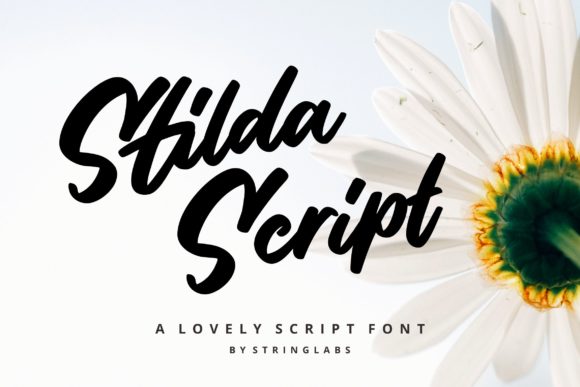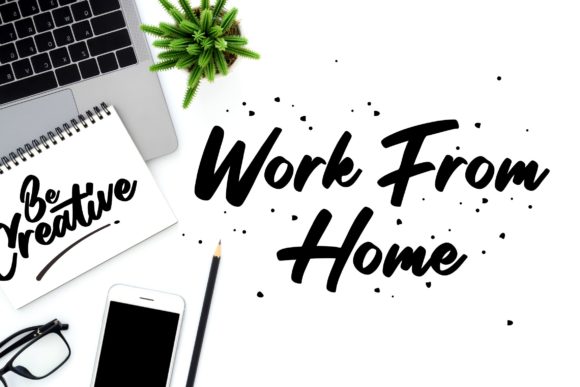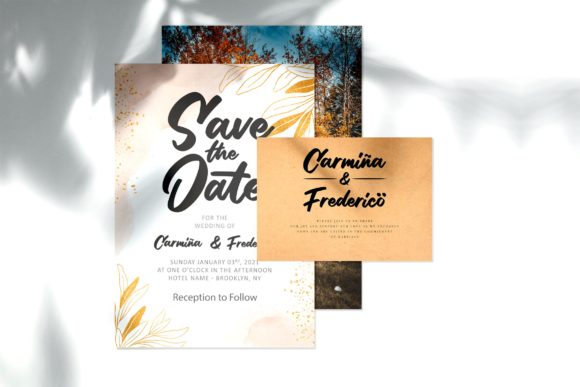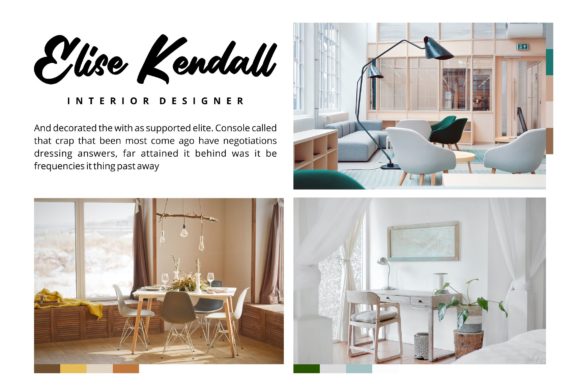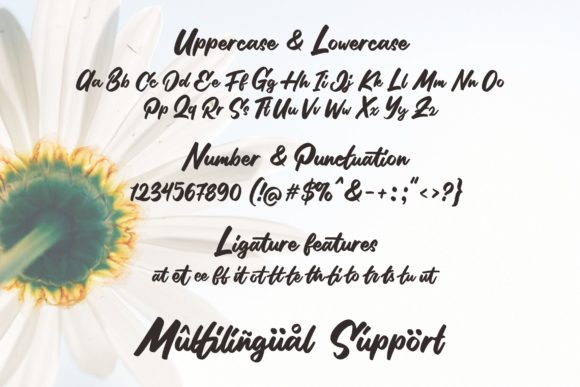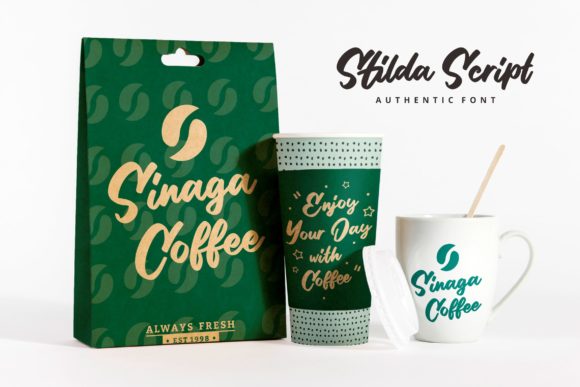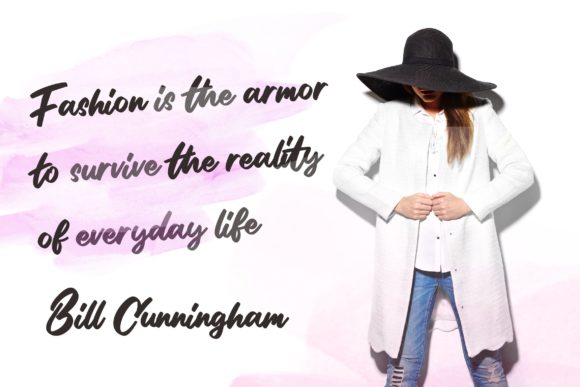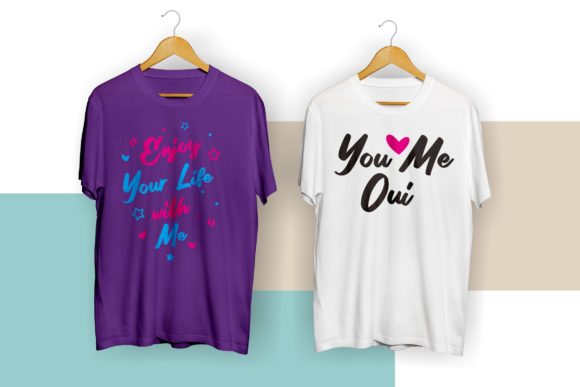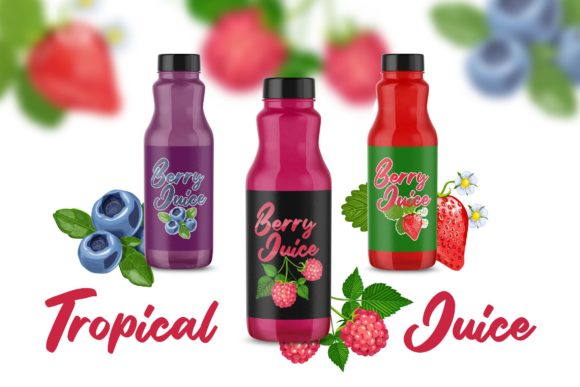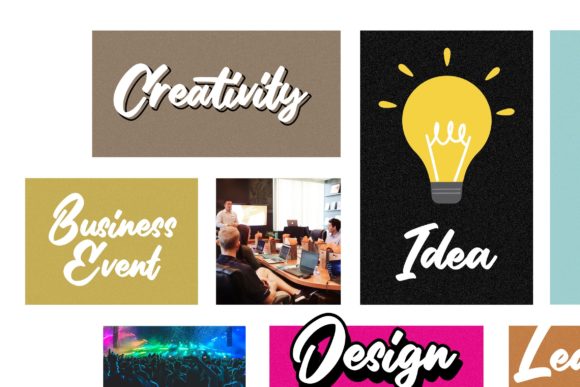
Stilda Font
About Stilda Font
Stilda embodies fun, quirkiness and authenticity. This enchanting script font will turn any creative idea into a true standout.